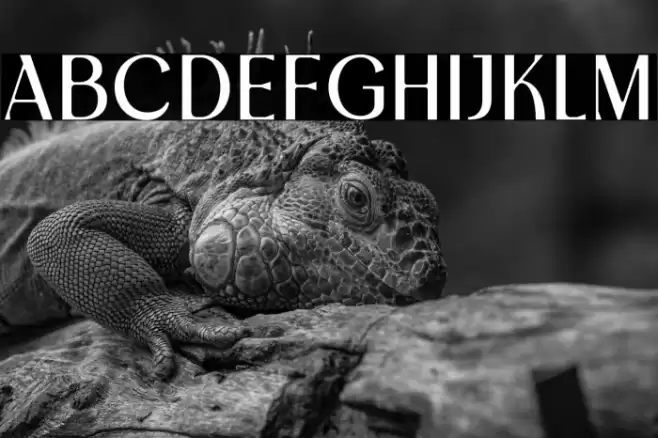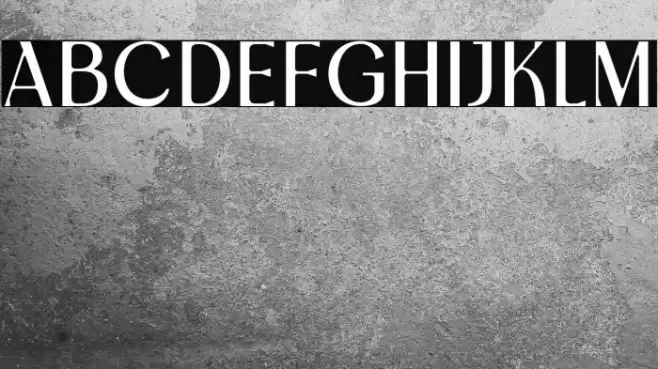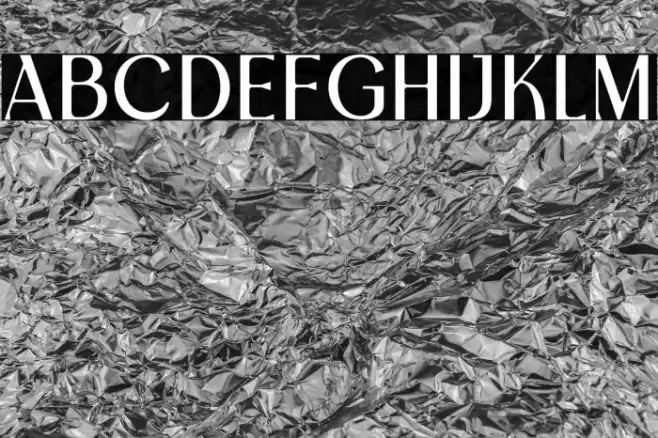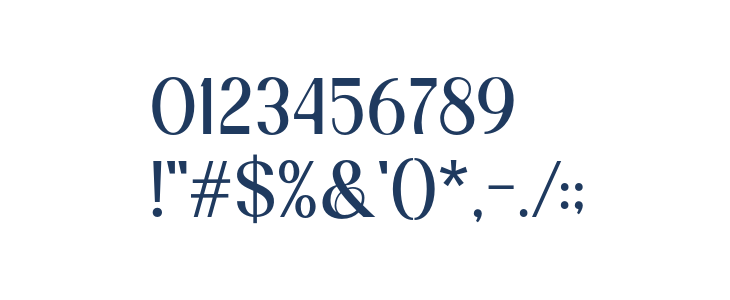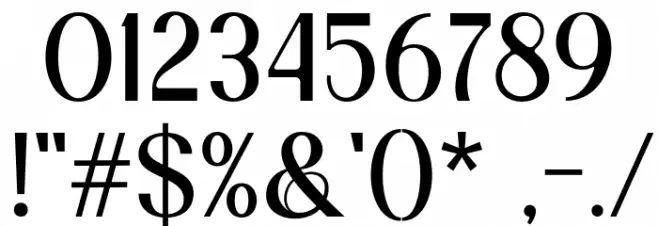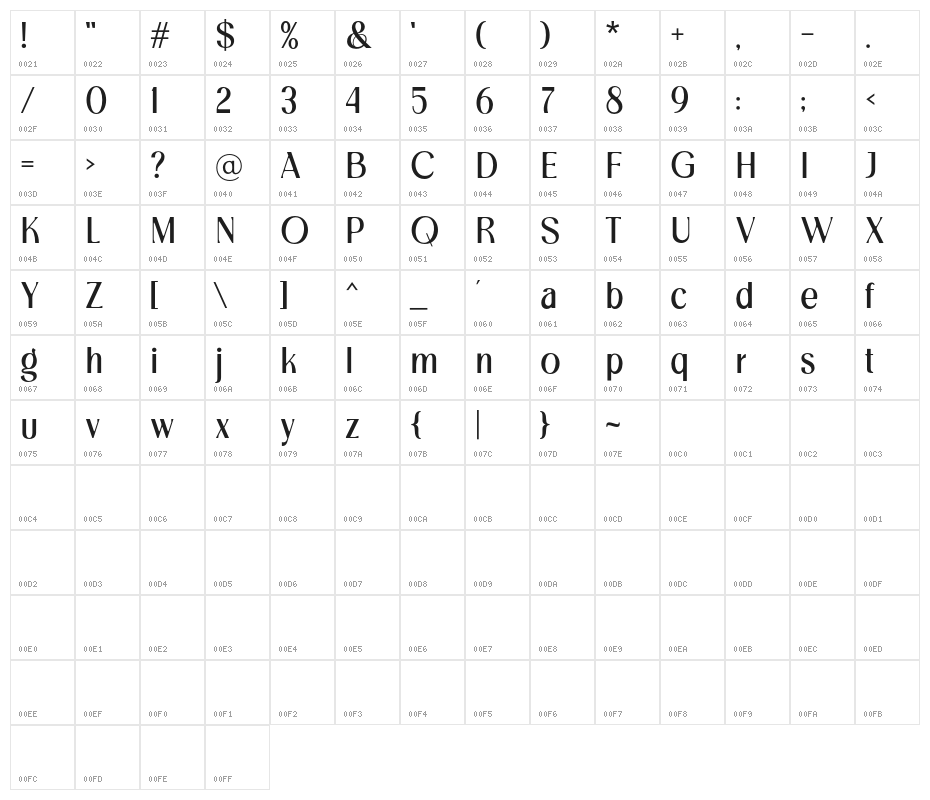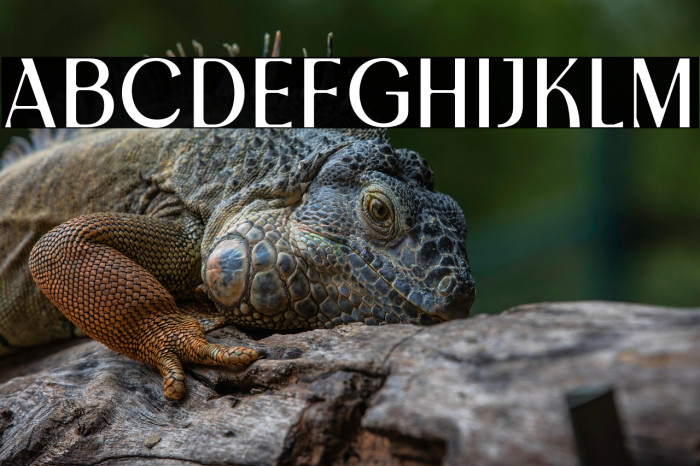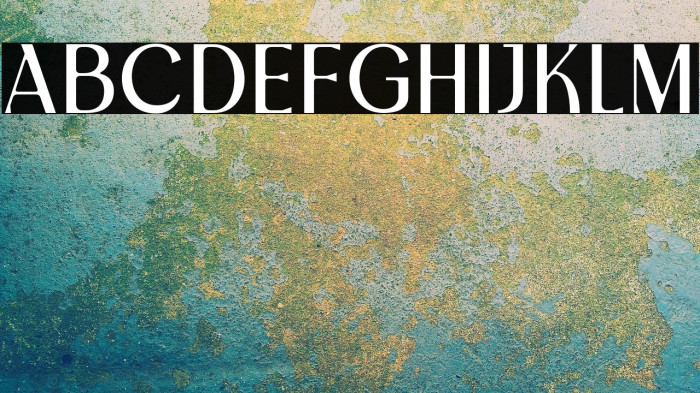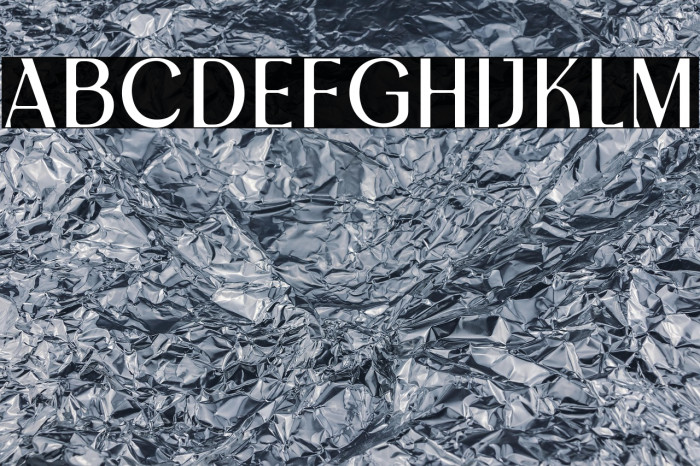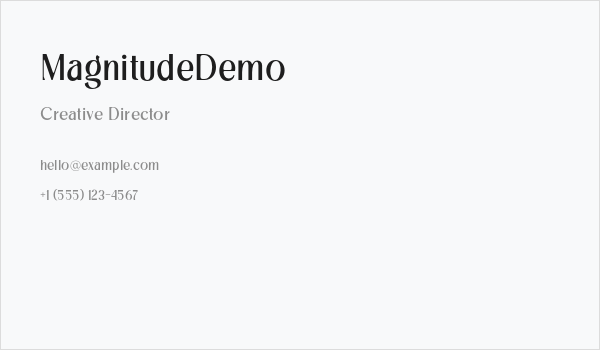
MagnitudeDemo Font
MagnitudeDemo Description
This font exhibits a classic serif style with a modern twist, characterized by its elegant and refined letterforms. The uppercase letters are tall and stately, while the lowercase letters maintain a harmonious balance with slightly rounded edges. The numerals are clear and distinct, making them highly legible. Special characters are crafted with precision, adding to the font's versatility. The overall design is sophisticated, making it suitable for a wide range of applications where a touch of elegance is desired.
A modern serif font with elegant, refined letterforms and excellent legibility from Uncategorized fonts.
- Font: MagnitudeDemo
- Proposed Projects: Ideal for editorial design, book covers, formal invitations, and branding projects that require a touch of sophistication.
- Overall Style: Classic